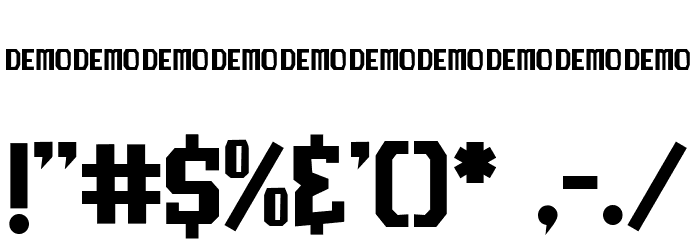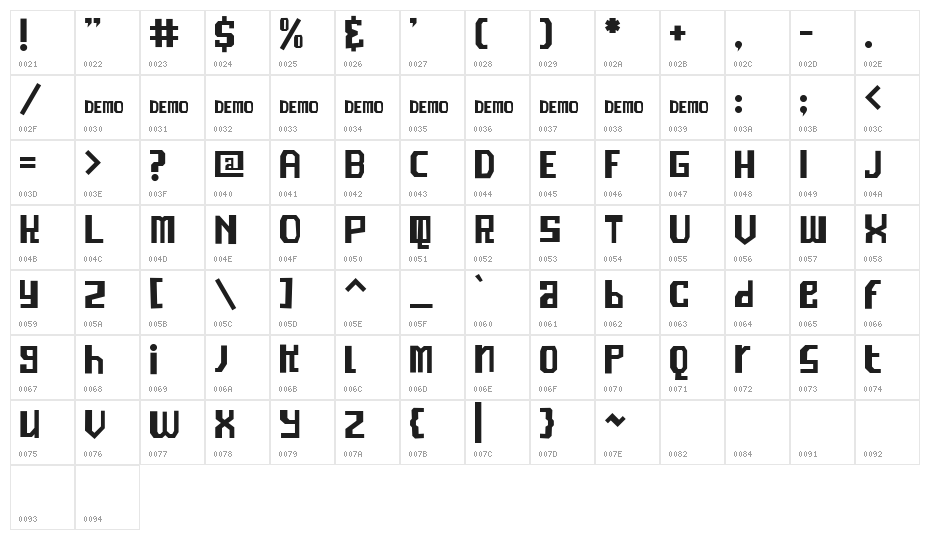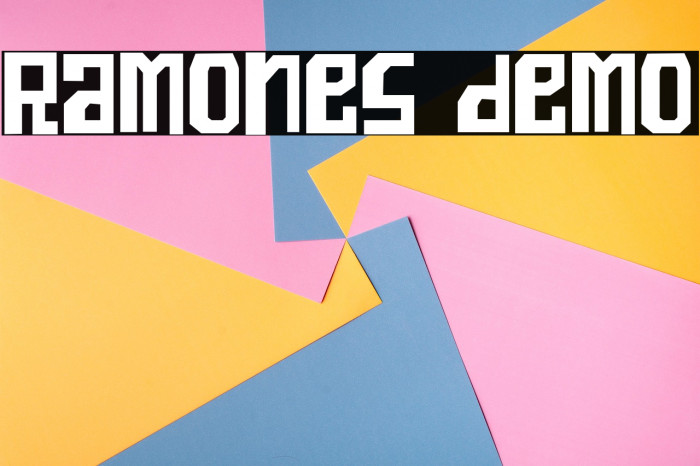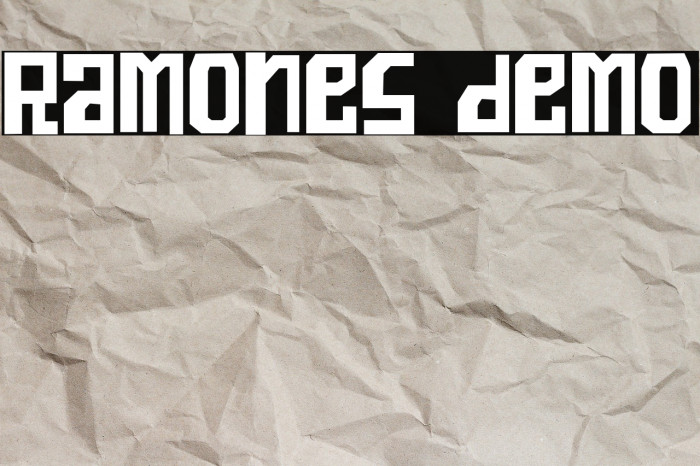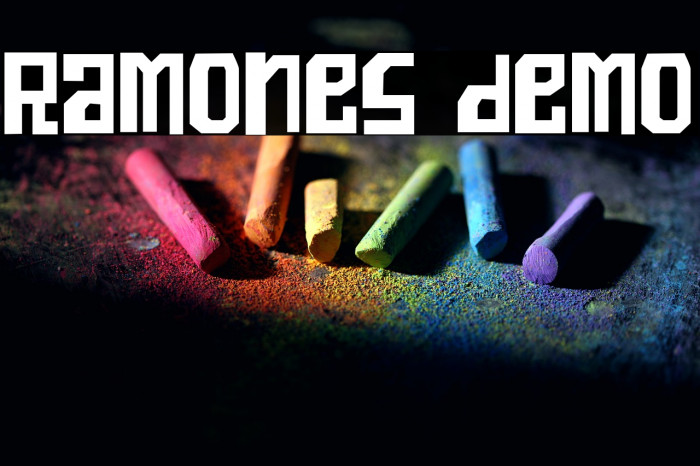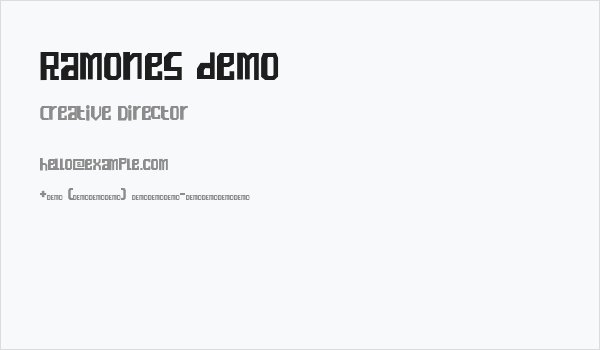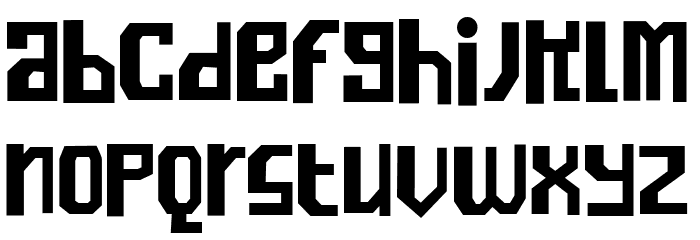
Ramones demo Font
Ramones demo Description
This font features a bold, geometric design with a modern and edgy feel. The characters are constructed with sharp angles and straight lines, creating a strong visual impact. The uppercase and lowercase letters maintain a consistent style, with a unique blend of angular and blocky elements. The numbers and special characters follow the same design principles, ensuring uniformity across all glyphs. The font's distinct style makes it suitable for projects that require a bold and striking appearance.
| Proposed Projects | Ideal for music album covers, posters, branding for edgy or modern companies, and any design needing a bold statement. |